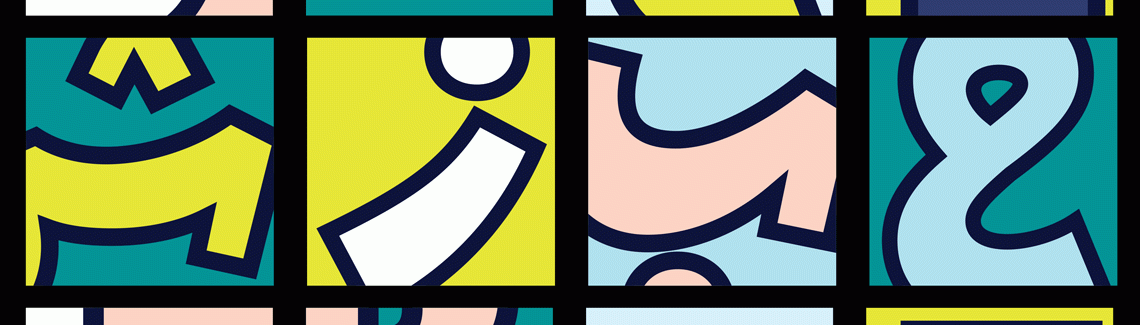
Bree Arabic in progress
Bree Arabic, designed by Azza Alameddine and Rabab Charafeddine in the Ruq’a style, will retain the original informal, friendly, and flexible feeling of the other Bree scripts.
While looking over our font families, we often discuss which ones could benefit from something additional to serve our customers best: additional weights, more scripts, and the like. Bree is TypeTogether’s friendliest typeface, so as we moved forward with adding its Arabic counterpart we knew it should convey the same sympathy.
Bree Latin was clearly influenced by handwriting. With candid letter shapes like the one-storey “a” and “g”, choosing an Arabic style was easy: Bree Arabic had to be in Ruq’a style.
Ruq’a
Ruq’a is the calligraphic style used in handwritten Arabic because of its simple structure. It has an informal and friendly feel and is characterized by simple horizontal and vertical strokes.
In Ruq’a, unlike in Naskh, most words lie on the baseline (except when they end with letters like م ع ح). This means that the final letter of a word almost never descends below the baseline and therefore all previous letters are on higher level(s).
Ruq’a is also an informal and flexible style in which to write, and for this reason many letters have alternate shapes. This is a feature we will be taking advantage of when designing Bree Arabic
Work in progress
Bree Arabic, designed by Azza Alameddine and Rabab Charafeddine, will retain the rounded and friendly feel of the Latin script by having smooth, uninterrupted strokes and will come in seven weights. It’s still a work in progress so stay tuned!